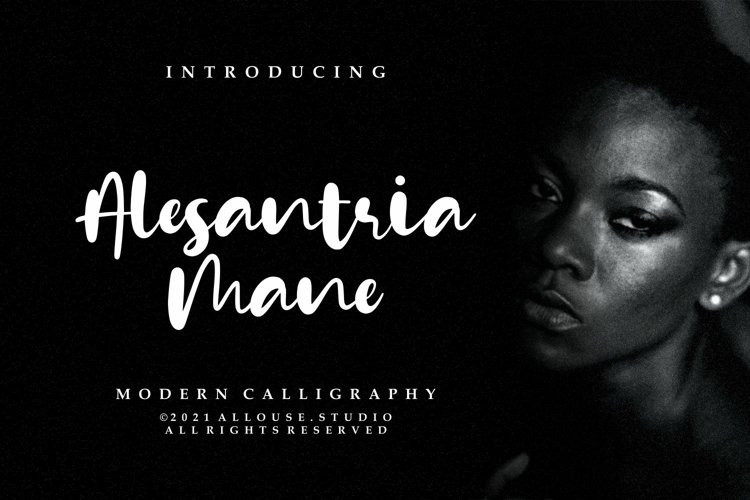
Alesantria Mane Script Font
Introducing by Allouse.Studio
Proudly Present, Alesantria Mane.
Alesantria Mane is a Modern Calligraphy Font.
Alesantria Mane is perfect for product packaging, branding project, megazine, social media, wedding, or just used to express words above the background.